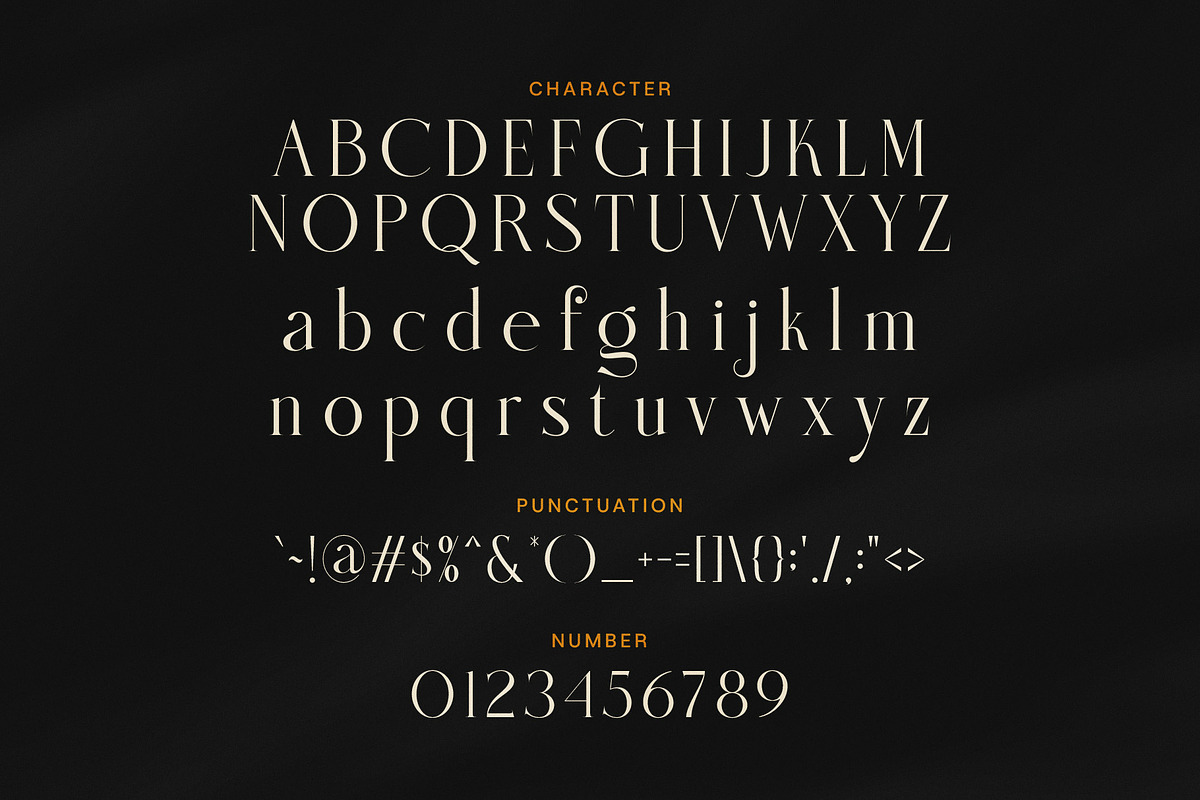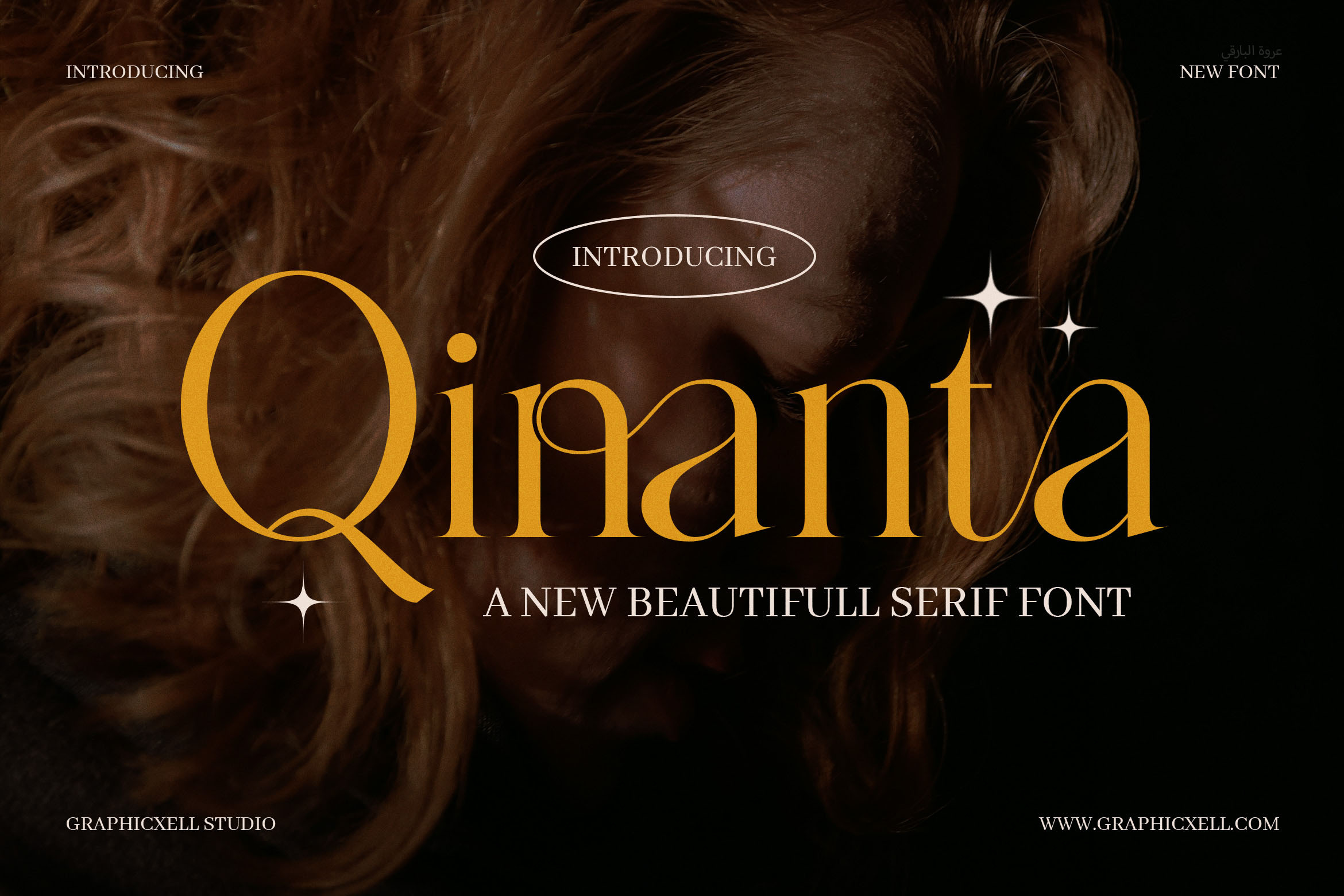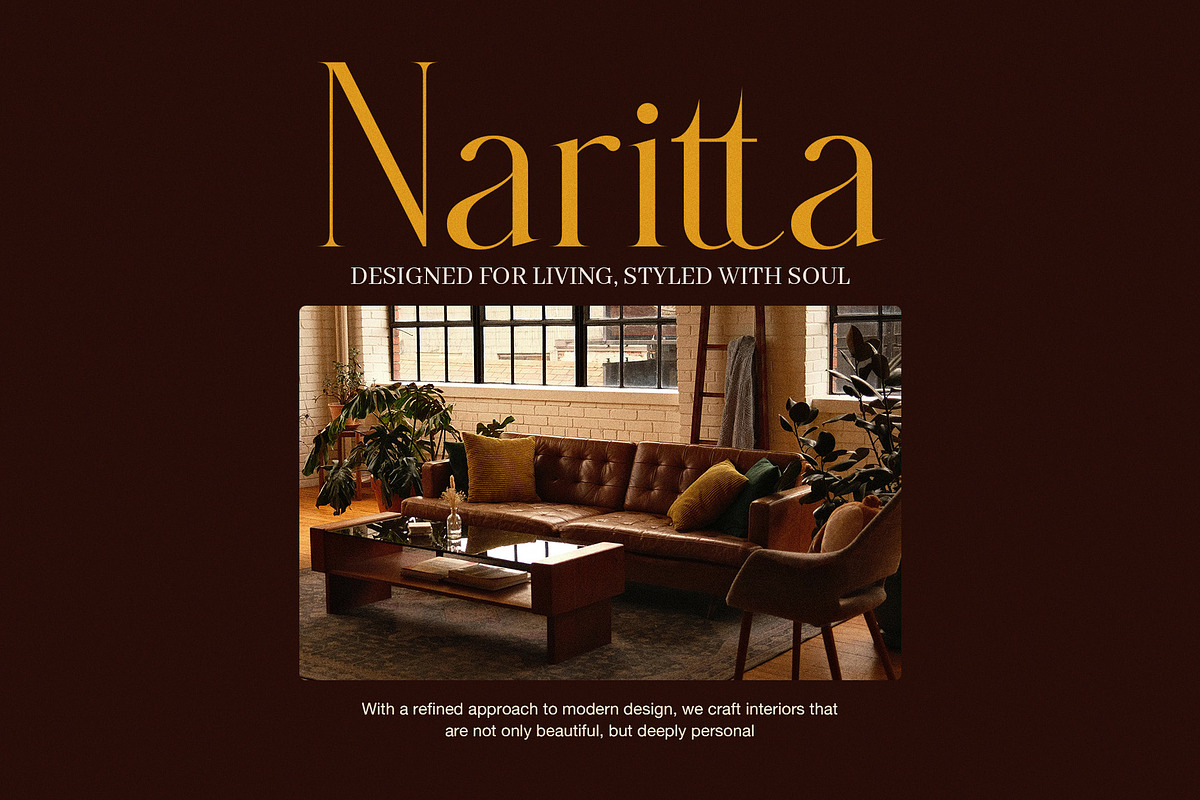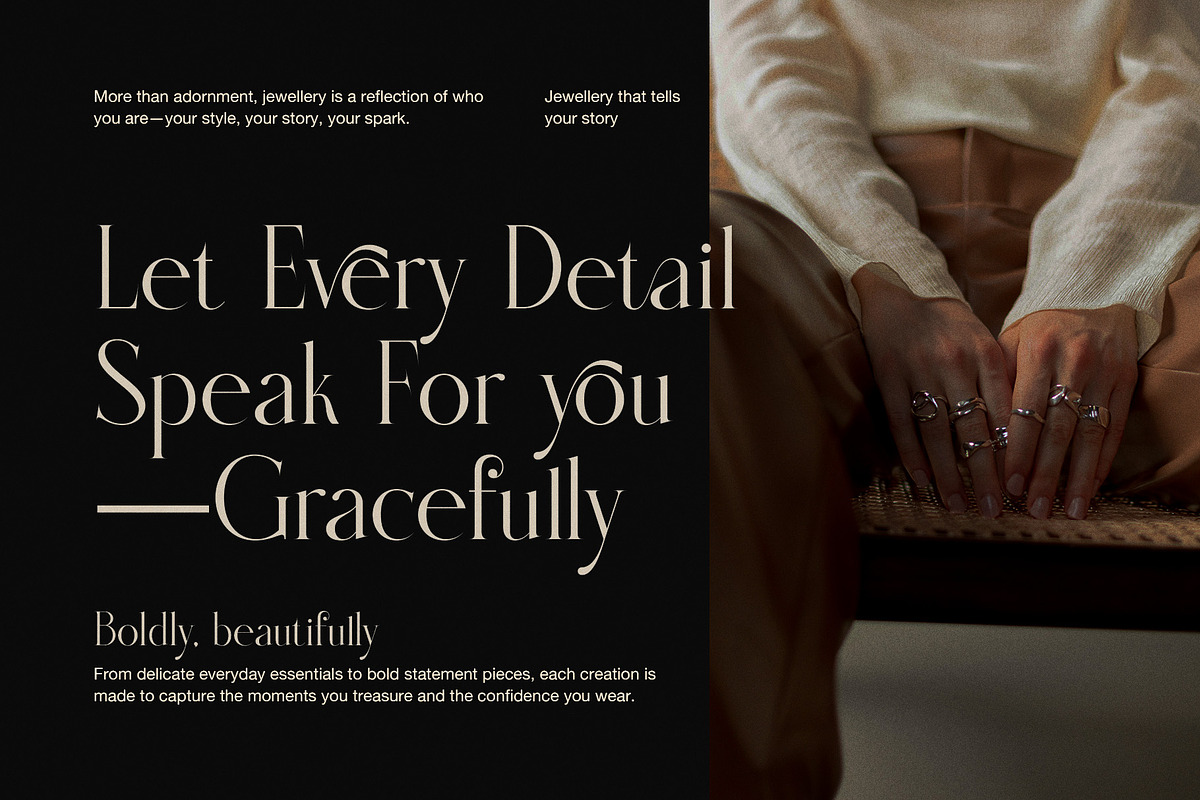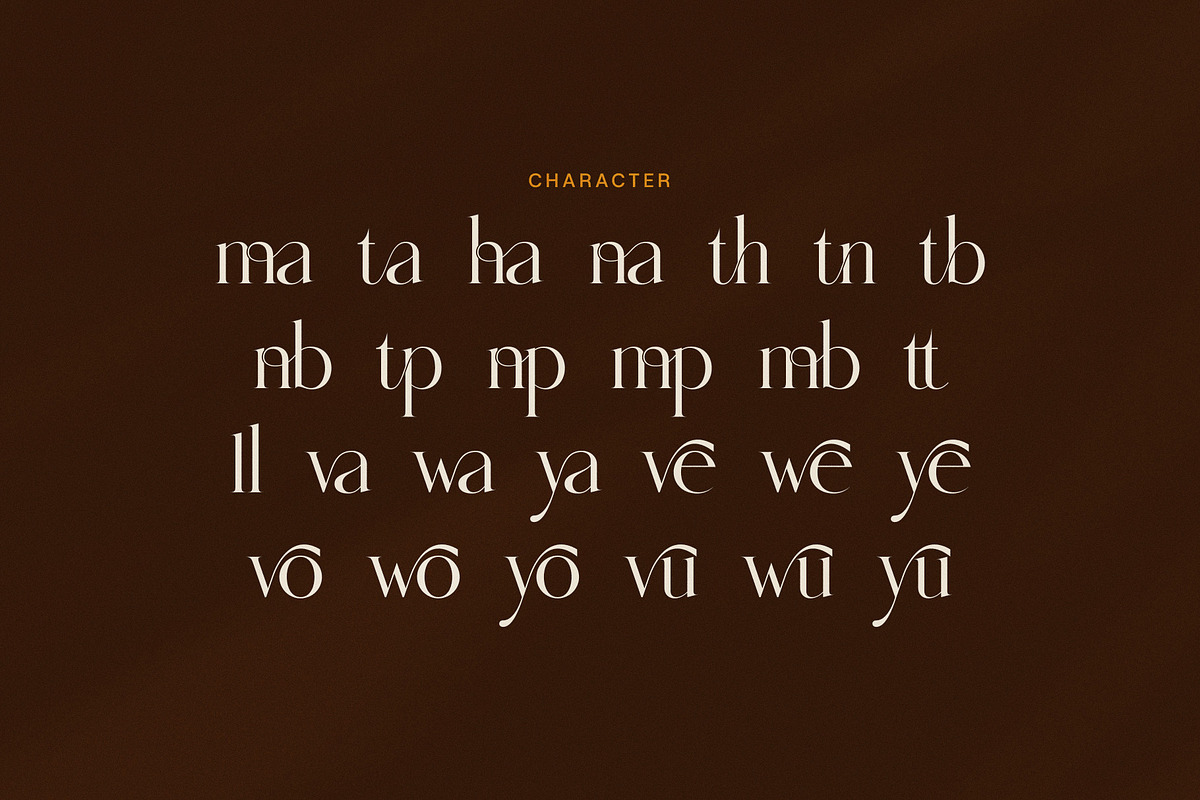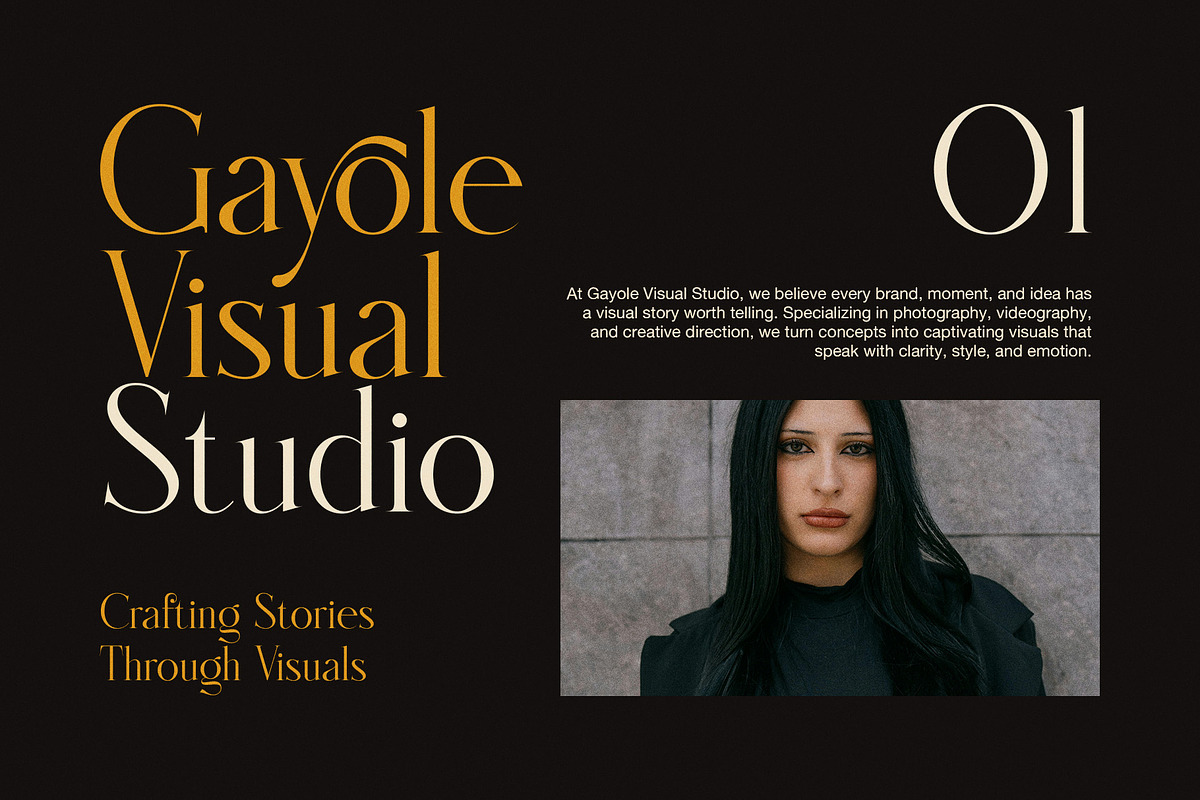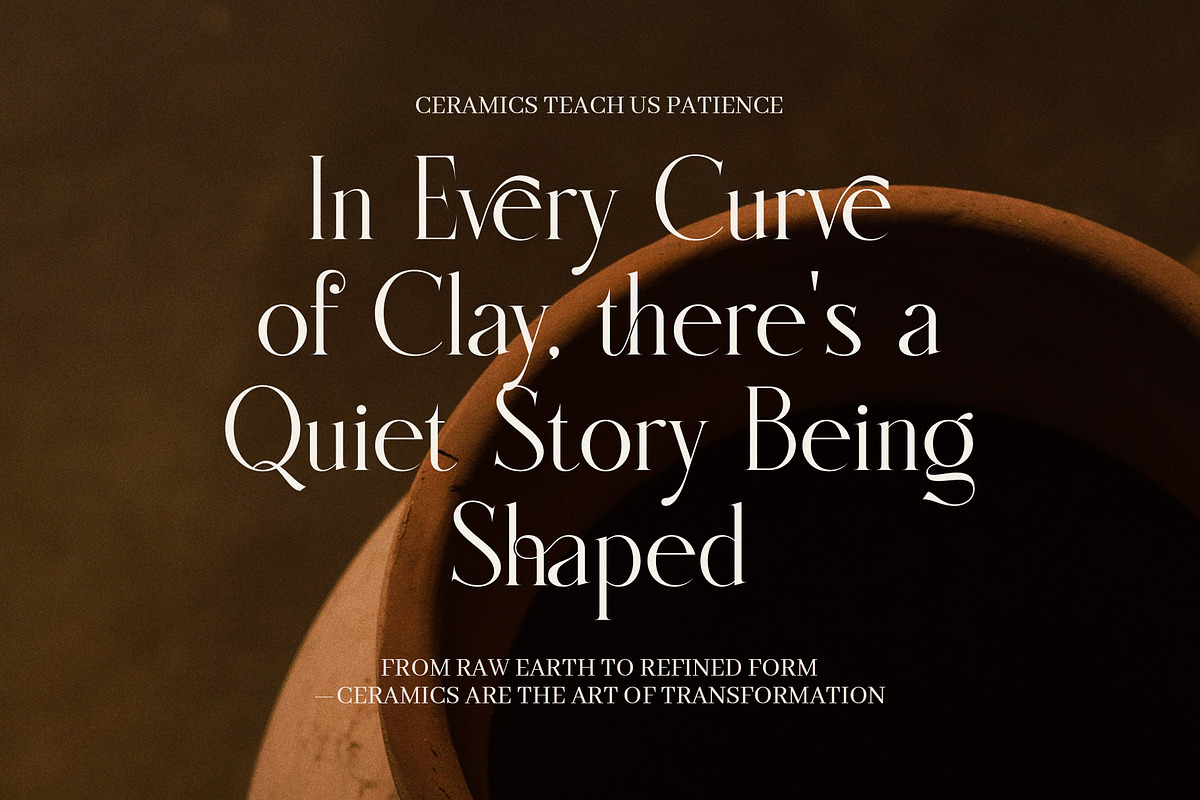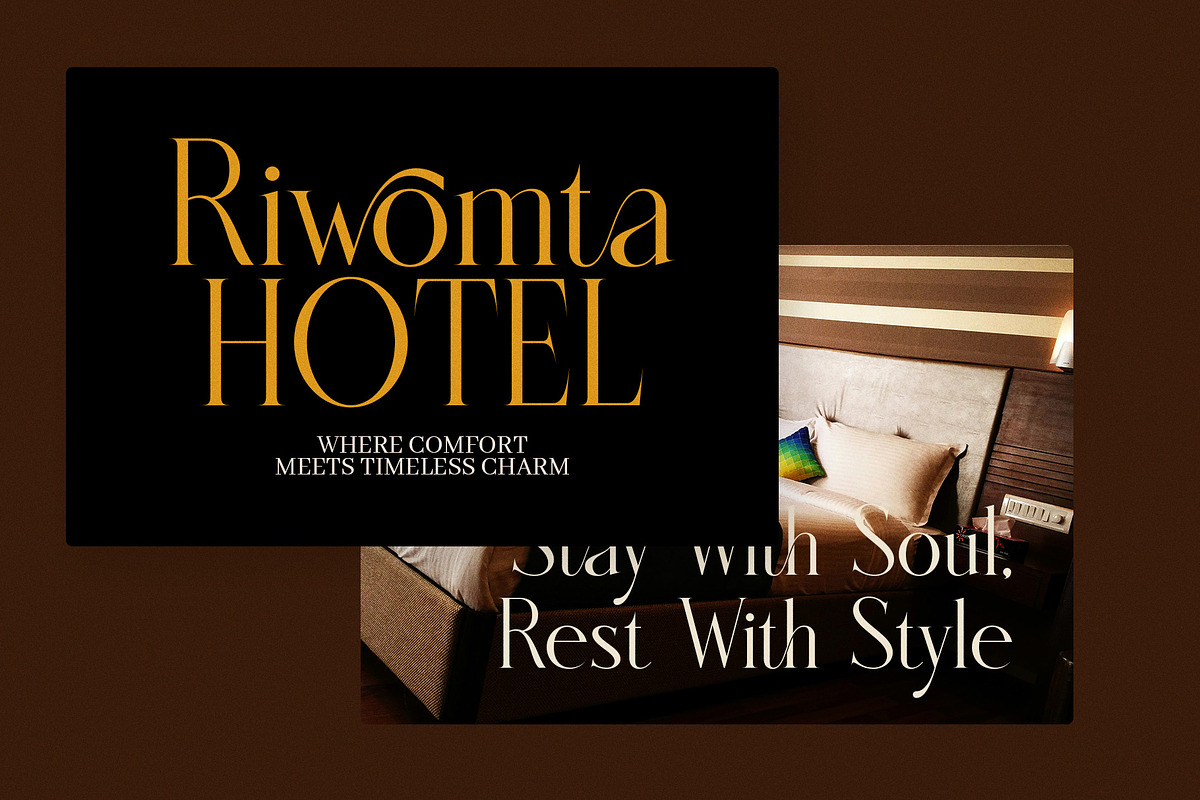
Qinanta Elegant Font
Qinanta Elegant Font is a stylish and modern script font that adds a soft and lovely touch to your designs. It is perfect for wedding invitations, branding, logos, packaging, and more. Because of its smooth curves and flowing lines, this font gives your work a gentle and classy feel.
Besides being beautiful, Qinanta is very easy to use. Whether you work on print or digital projects, this font stays clear and easy to read. So, if you are a designer, blogger, or small business owner, Qinanta helps you add a personal and elegant look to your work. Also, it pairs well with simple serif or sans-serif fonts, which means you can make clean and nice layouts easily.
Here are some reasons why Qinanta is a great choice:
It fits perfectly for weddings, invitations, and greeting cards.
It works well for luxury brands and packaging designs.
Its natural, flowing script has lovely swashes.
It reads well even in small sizes.
It looks great in both print and on screens.
It gives a smart and stylish look to any project.
It supports many languages with extra characters.
It includes special alternates and ligatures for more style.
Also, Qinanta blends classic beauty with a fresh, modern look. The letters flow naturally, creating a handwritten feel that is warm and professional. Because of this, your designs will look polished and stand out.
If you want to make your projects more elegant and attractive, Qinanta is the font to choose. It offers timeless style and easy use, making your work memorable and charming.